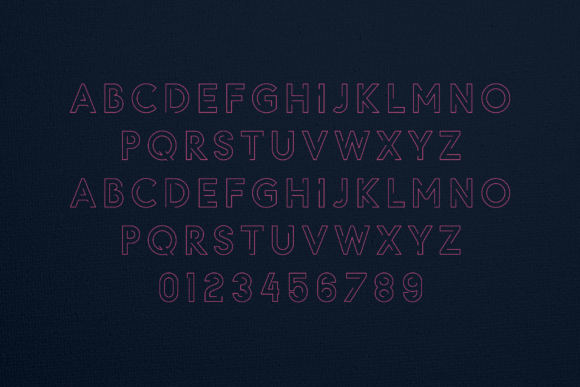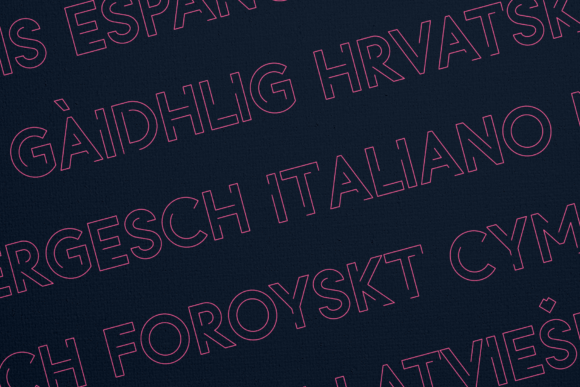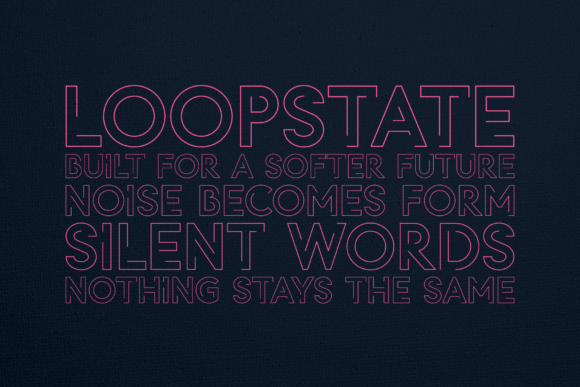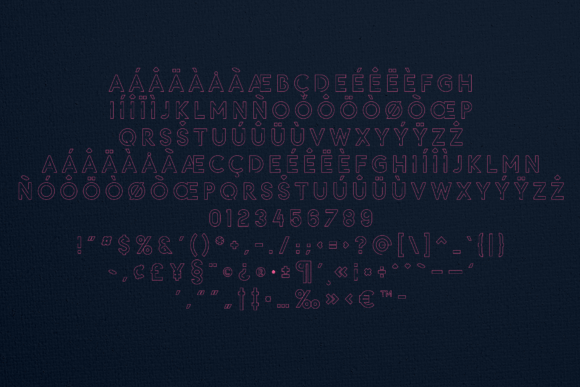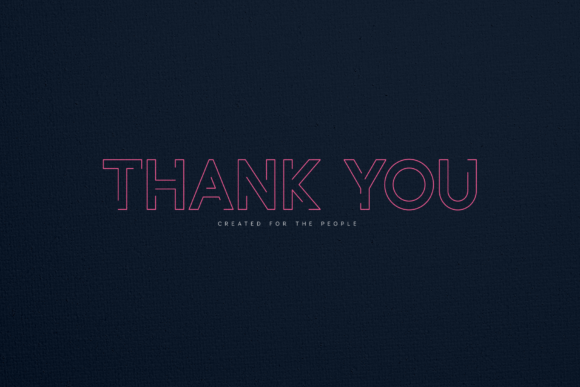
A Type of Confidence: Unleashing the Power of Azora Branding Edition Font
Imagine you’re brainstorming a new logo design, and suddenly, an idea strikes. You envision a bold, modern font that screams confidence and style. That’s where Azora Branding Edition Font comes in – a powerful tool for designers who crave a strong visual identity. This sleek, outline display font is specifically crafted for creating striking logos, impactful branding systems, and contemporary visual identity systems.
Azora Branding Edition Font is a game-changer for designers seeking modern minimalism with architectural strength. Its clean geometric construction, precise angles, and structured letterforms deliver clarity and confidence, making it perfect for large headlines, packaging, posters, and statement typography. Whether you’re working on a fashion label, packaging design, or social media graphics, Azora is the perfect choice to elevate your design to the next level.
Azora Branding Edition Font Key Features
- Font Family: Azora Branding Edition Font is a unique, high-end font designed for corporate branding and marketing materials.
- Character Set: The font includes a wide range of characters, including Latin, Cyrillic, and Greek alphabets, making it suitable for global branding.
- Unique Characteristics: The font features a sleek, modern design with subtle nuances that evoke a sense of luxury and sophistication, making it perfect for high-end branding and marketing materials.
A Review of Azora Branding Edition Font
I recently had the chance to work with Azora Branding Edition Font, and I’m excited to share my thoughts with you. Here’s what I found:
- Unique design: Azora Branding Edition Font has a distinctive look that sets it apart from other fonts. Its bold and elegant design makes it perfect for creating a strong brand identity.
- Legibility: Despite its bold design, the font is still easy to read, even at smaller sizes. This makes it a great choice for body text as well as headlines.
- Font pairing options: The font comes with a range of companion fonts that can be used to create a cohesive brand look.
- Weight limitations: While the font has a bold design, it only comes in a limited range of weights. This may limit its use in certain applications where a lighter or heavier weight is needed.
- Lack of language support: Azora Branding Edition Font only supports a limited range of languages, which may be a limitation for projects that require multilingual support.
Overall, I found Azora Branding Edition Font to be a solid choice for branding projects. While it has some limitations, its unique design and legibility make it a great option for creating a strong brand identity. However, it may not be the best choice for projects that require a wide range of weights or language support.
Tips for Getting the Most Out of Azora Branding Edition Font
1. Use the font consistently throughout your design to create a strong brand identity.
2. Experiment with different font sizes and styles to add visual interest.
3. Use the font in combination with other design elements, such as images and graphics, to create